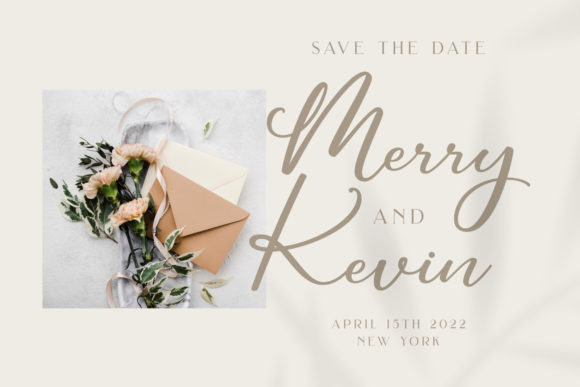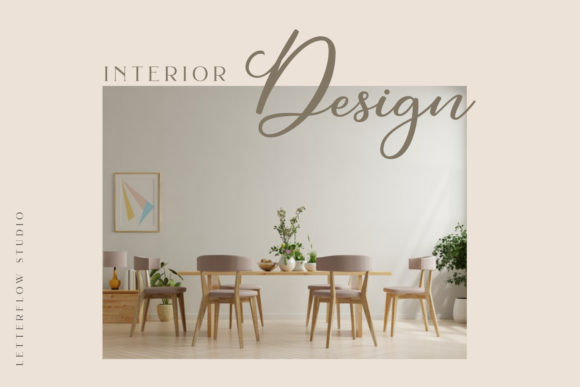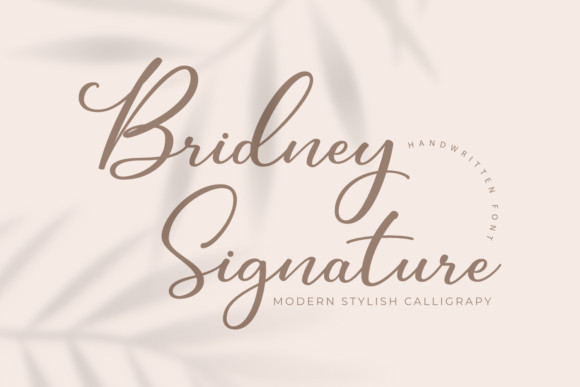
Bridney Signature Font
Bridney Signature is an enchanting handwritten font. This versatile script font has a wide spectrum of applications ranging from greeting cards to headlines and is guaranteed to add a romantic feel to your next project.